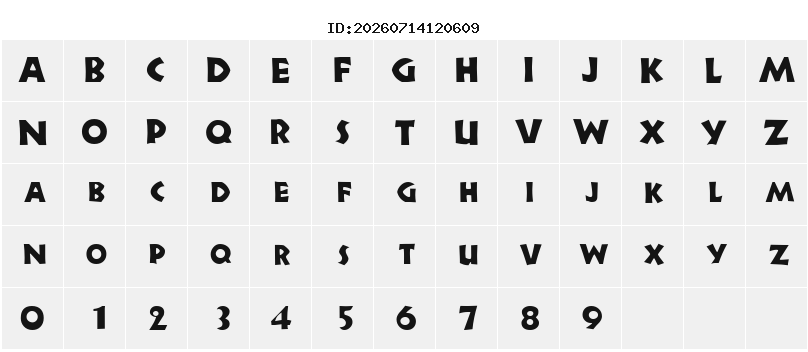
HeartwoodDisplaySCapsSSK Preview
• Font Name: HeartwoodDisplaySCapsSSK
• Font ID: Altsys Metamorphosis:HeartwoodDisplaySCapsSSK Regular
• Full Font Name: HeartwoodDisplaySCapsSSK Regular
• Version: Altsys Metamorphosis:8/30/94
• PostScript Name: HeartwoodDisplaySCapsSSK
• Character Count: 208
About HeartwoodDisplaySCapsSSK.ttf
HeartwoodDisplaySCapsSSK.ttf is a modern, elegant sans-serif font designed for ultimate readability and visual harmony. Perfect for branding, headlines, web design, and print materials.